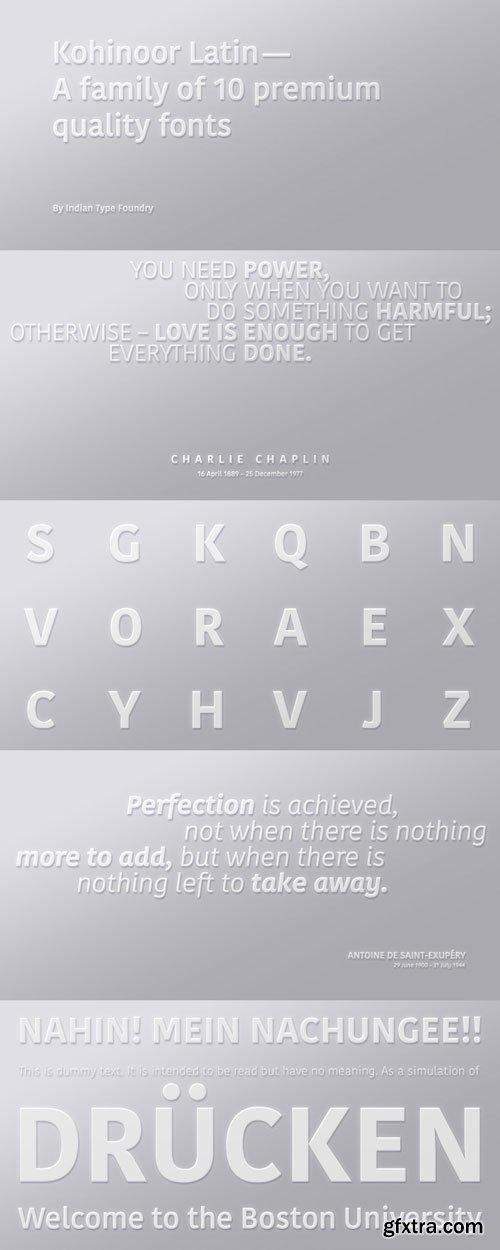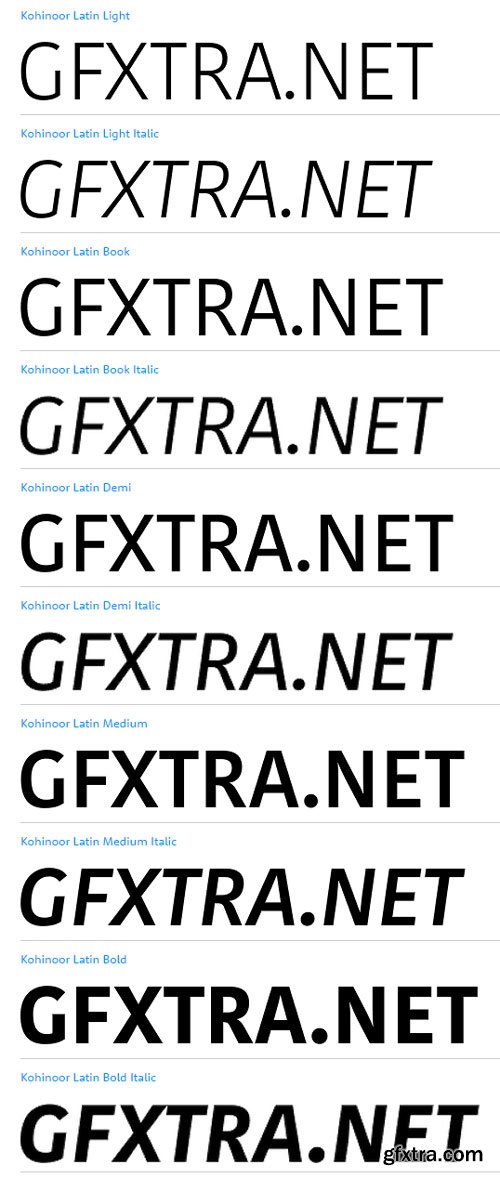
Kohinoor Latin is an elegant, low contrast humanist sans-serif suitable for both body and the display text. Kohinoor Latin comes in 5 upright styles with their complementary italics.